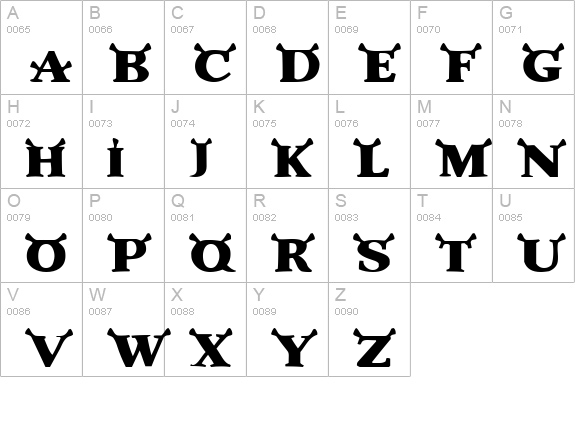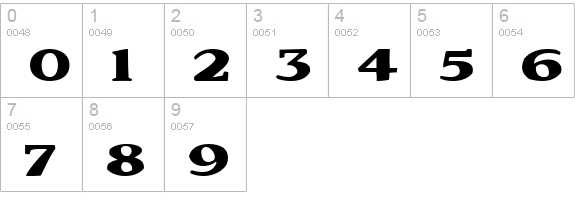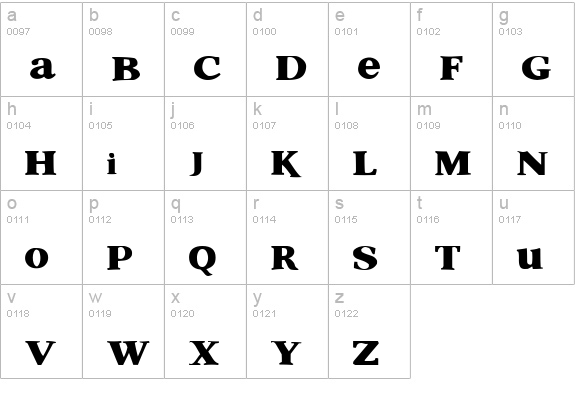
Shrek Font Details
The Shrek font is a whimsical and captivating typeface inspired by the beloved animated film. With its quirky and playful design, this font captures the essence of the lovable ogre and his fantastical world. Whether you're creating a birthday invitation, designing a poster, or adding a touch of magic to your digital creations, the Shrek font is the perfect choice to bring a touch of fairy tale charm to your projects. What makes the Shrek font even more fantastic is that it is completely free! Yes, you read that right - this incredible font is freely available to download at FontsMarket.com. You can now unleash your creativity without having to worry about any costs or restrictions. The Shrek font allows you to add a touch of whimsy and enchantment to your designs, and it's just a click away. With its unique characters and attention to detail, the Shrek font is sure to delight both young and old. Its bold and expressive letterforms bring a sense of adventure and fun to any design. Whether you're a graphic designer, a party planner, or simply a fan of the iconic green ogre, this font is a must-have in your collection. So why wait? Head over to FontsMarket.com and download the Shrek font today. With its free availability, there's no reason not to add a dash of Shrek's charm to your next project. Let your imagination run wild and bring a touch of magic and laughter to your designs with this delightful font.